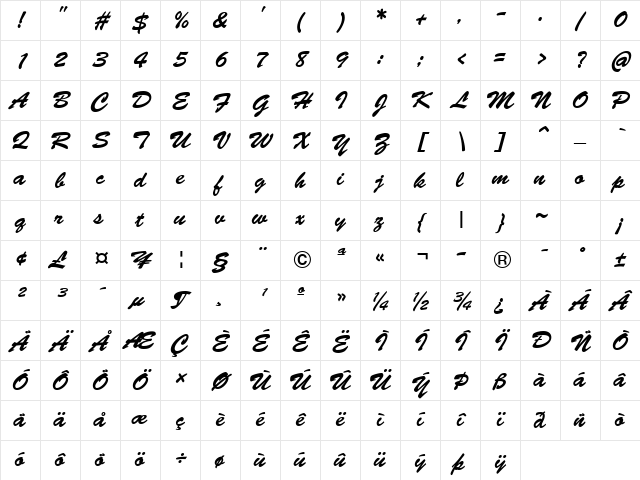
Bermuda Script Regular Free Font
Bermuda Script Regular
Design Context for Bermuda Script
Bermuda Script flows with the natural rhythm of handwritten lettering, making it ideal for designs that call for warmth and personal expression.
Font Pairing: Combine Bermuda Script with a simple geometric sans for maximum contrast - the tension between flowing curves and clean structure is a classic typographic pairing.
Pro Tip: Use Bermuda Script for short runs of text - names, titles, or taglines. Extended body copy in script faces tires the eye quickly.